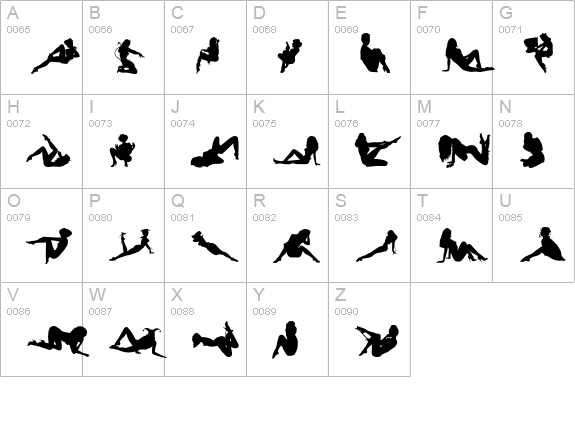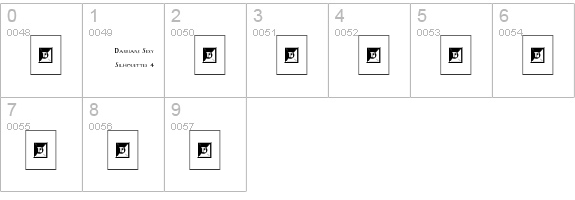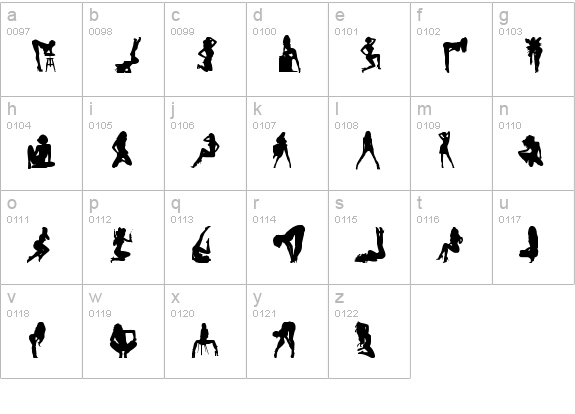
Darrians Sexy Silhouettes 4 font is a stunning and elegant typeface that exudes sophistication and charm. With its sleek and seductive silhouettes, this font is perfect for adding a touch of allure to any project. Whether you're designing invitations, posters, or branding materials, Darrians Sexy Silhouettes 4 font will make a bold statement. The best part? Darrians Sexy Silhouettes 4 font is available for free download at FontsMarket.com. This means you can easily access this gorgeous font and elevate your designs without breaking the bank. Don't miss out on this fabulous opportunity to enhance your creative projects with Darrians Sexy Silhouettes 4 font. Download it today and get ready to captivate your audience with its irresistible appeal.